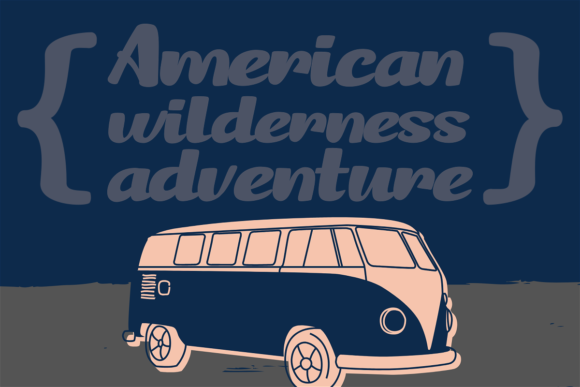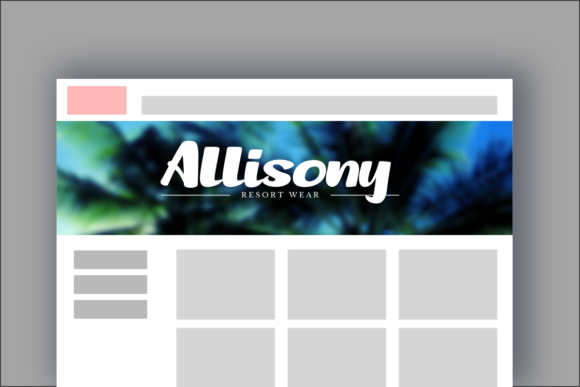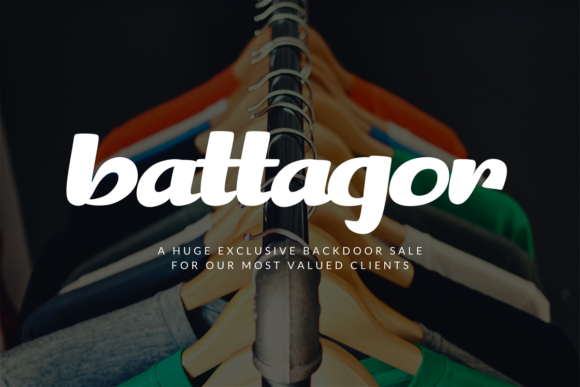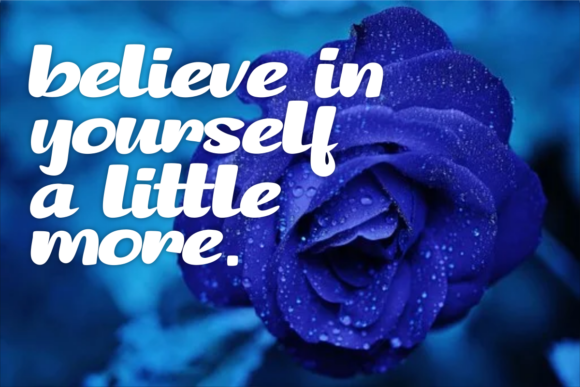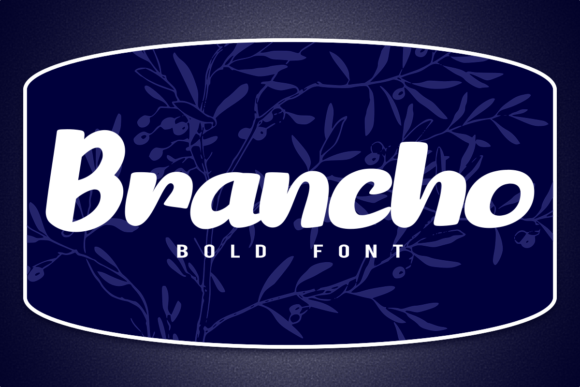
Brancho Font: The Ultimate Display Font for Creative Projects
In the world of typography, a good font can make all the difference in elevating your design to the next level. If you’re a designer, crafter, or simply a creative enthusiast, you’re likely always on the lookout for the perfect font to bring your ideas to life. That’s where Brancho Font comes in – a bold and chunky lettered display font that’s sure to make your projects stand out.
The Friendly Feel of Brancho Font
Brancho Font boasts a friendly feel that’s incredibly versatile, making it suitable for a wide range of contexts. Whether you’re designing a logo, creating a social media graphic, or crafting a poster, Brancho Font is the perfect choice. Its bold and chunky lettering gives it a playful, approachable vibe that’s sure to capture the attention of your audience.
What Makes Brancho Font So Special?
So, what sets Brancho Font apart from other display fonts on the market? Here are just a few reasons why Brancho Font is a cut above the rest:
- Unique Character: Brancho Font has a distinct, one-of-a-kind character that’s sure to make your designs stand out from the crowd.
- Versatility: Whether you’re designing for digital or print, Brancho Font is adaptable and flexible, making it perfect for a wide range of applications.
- Easy to Read: Despite its bold and chunky design, Brancho Font is surprisingly easy to read, making it perfect for headlines, titles, and short paragraphs of text.
How to Use Brancho Font in Your Designs
- Logos and Branding: Use Brancho Font to create a bold and memorable logo that’s sure to make your brand stand out.
- Social Media Graphics: Add a pop of personality to your social media graphics with Brancho Font’s playful, attention-grabbing design.
- Posters and Flyers: Make your posters and flyers stand out with Brancho Font’s bold and eye-catching lettering.
- Packaging Design: Use Brancho Font to add a touch of whimsy and personality to your product packaging.
Tips for Pairing Brancho Font with Other Fonts
Want to create a truly show-stopping design? Try pairing Brancho Font with another font to add contrast and visual interest. Here are a few tips to keep in mind:
- Contrast is Key: Pair Brancho Font with a clean, simple font to create a striking contrast that adds visual interest to your design.
- Consider the Mood: Choose a font that complements the mood and tone of your design. For example, pair Brancho Font with a playful script font for a fun and whimsical design.
- Don’t Overdo It: Remember, less is often more. Avoid over-pairing fonts, and stick to one or two complementary fonts to keep your design clean and cohesive.
In conclusion, Brancho Font is a bold and chunky lettered display font that’s sure to elevate your designs to the next level. Its friendly feel and versatile design make it perfect for a wide range of contexts, from logos and branding to social media graphics and packaging design. So why wait? Add Brancho Font to your design toolkit today and watch your creative ideas come to life!